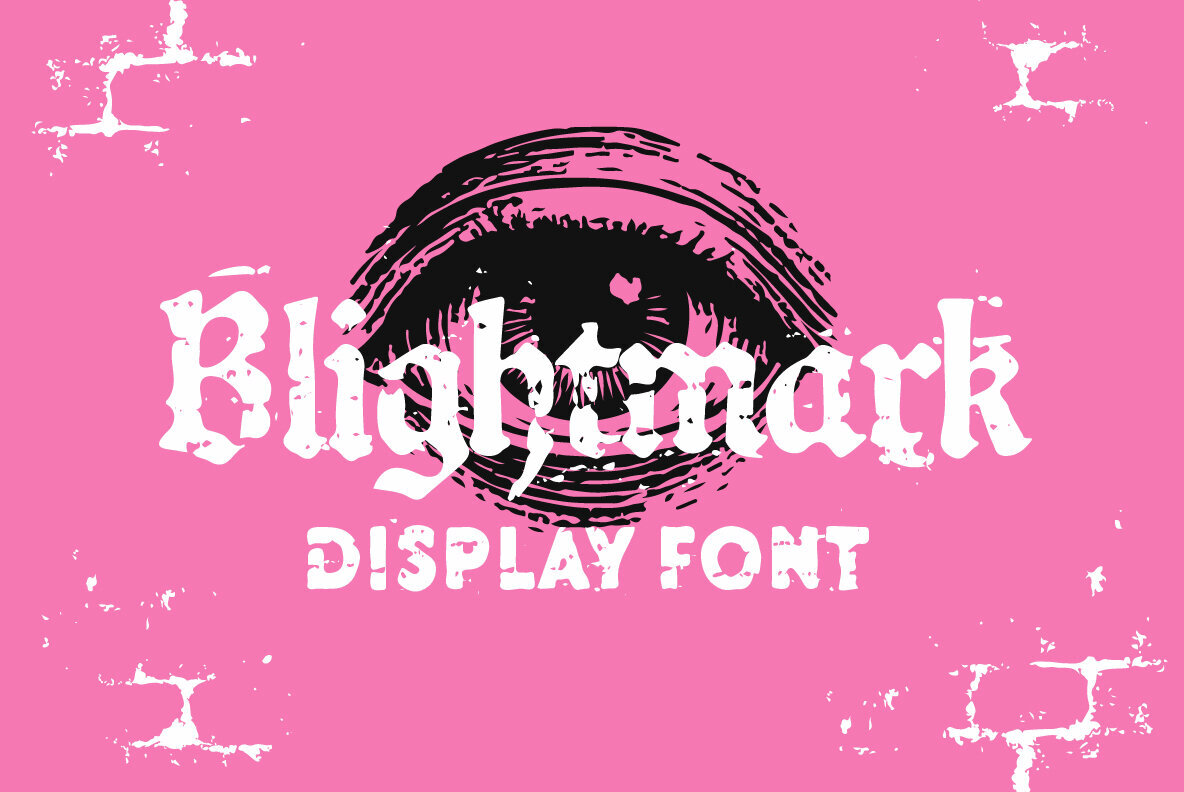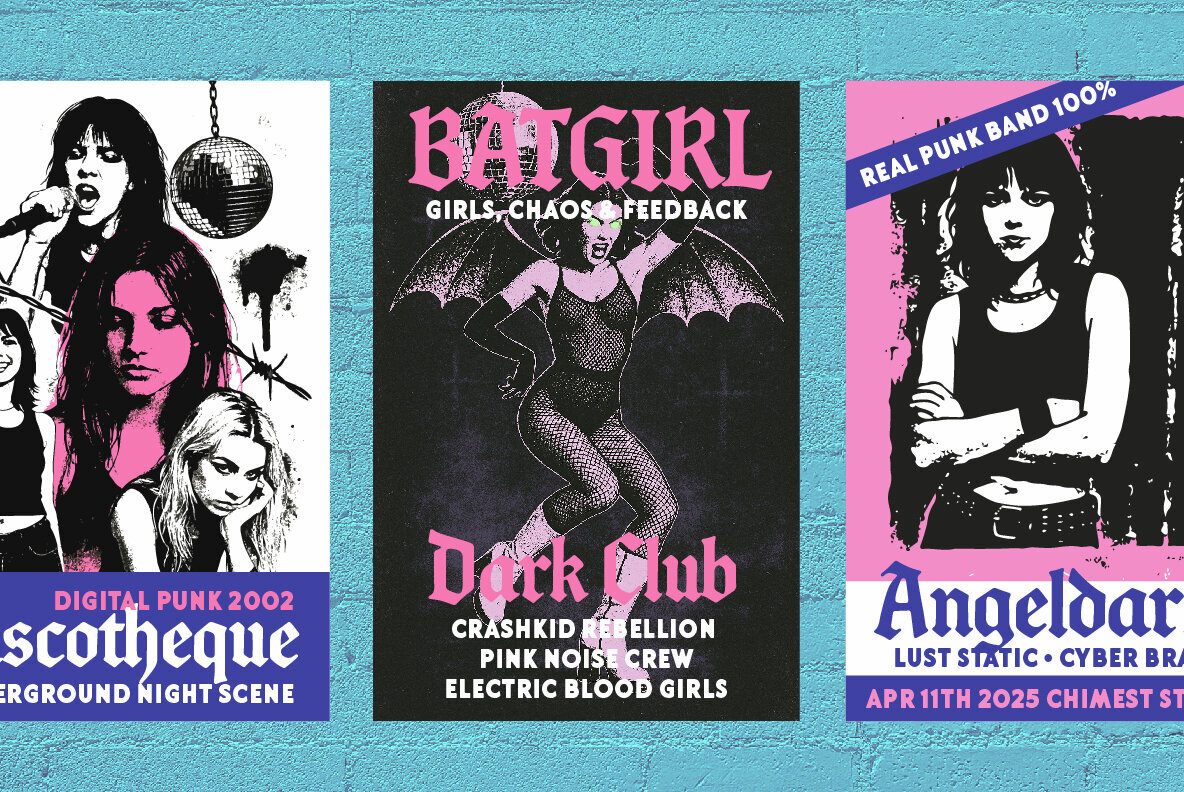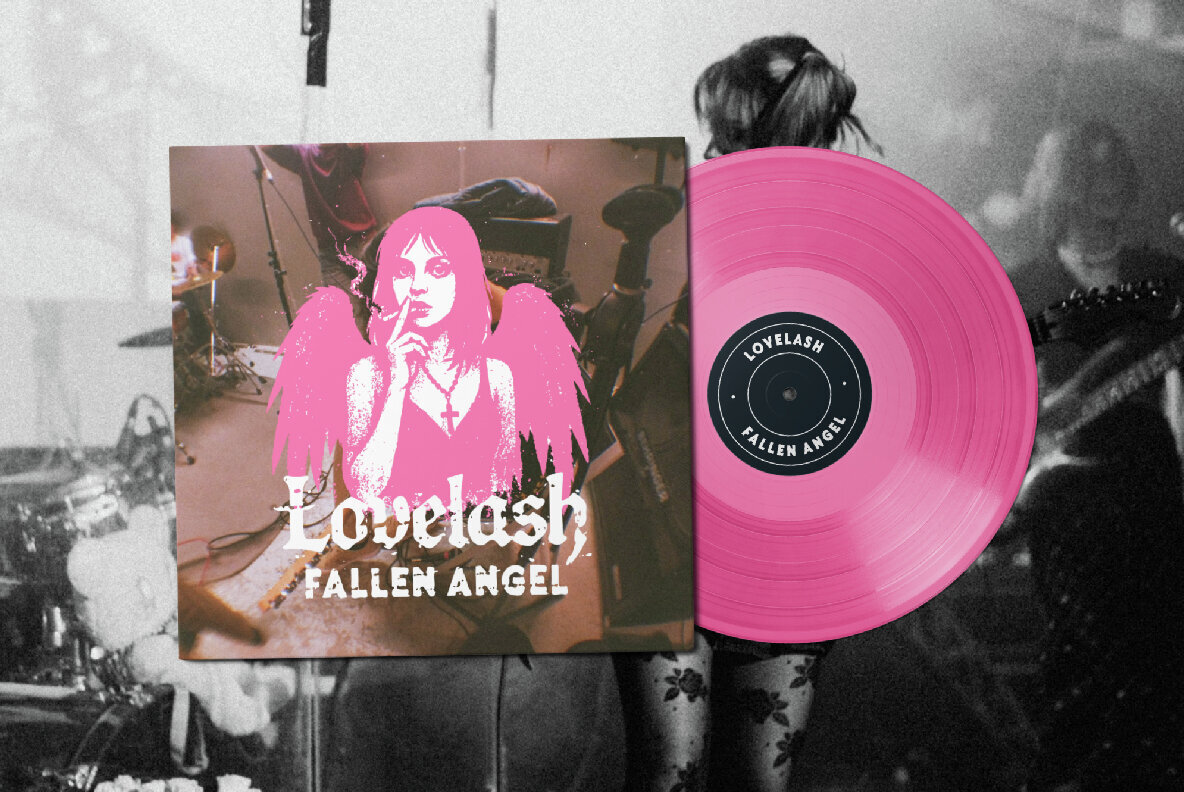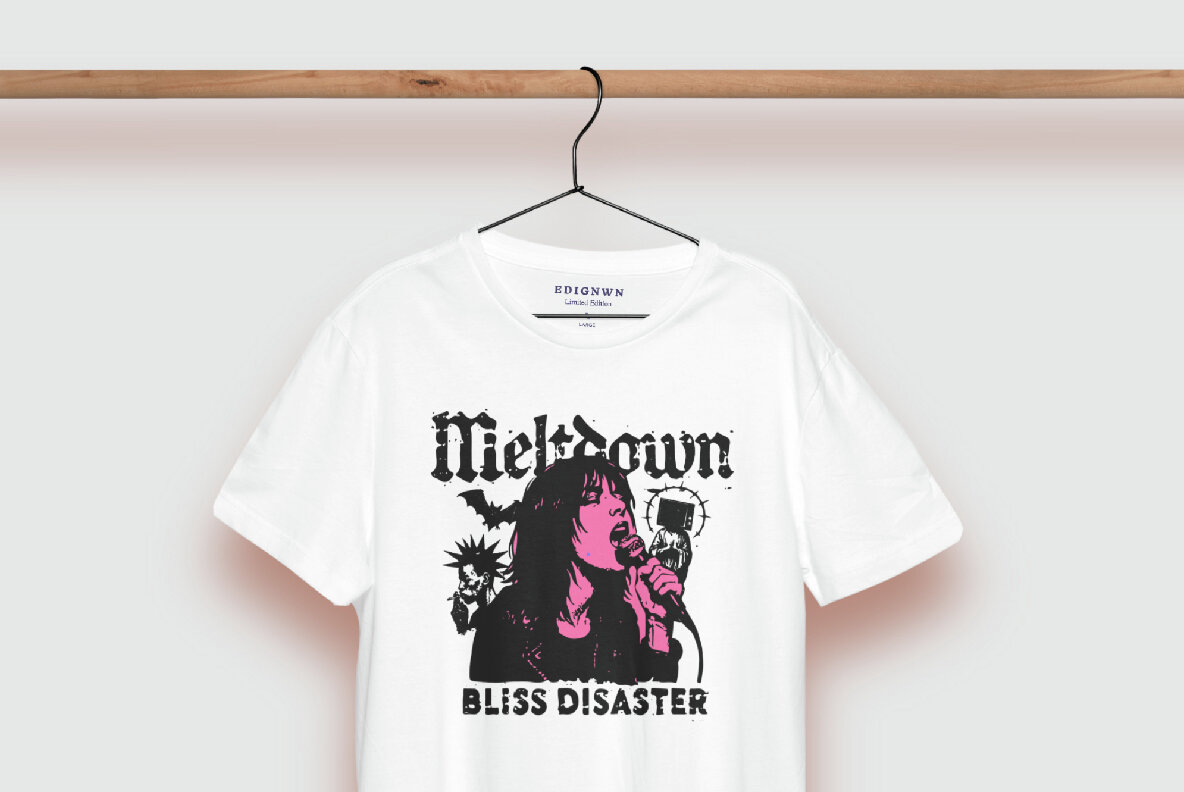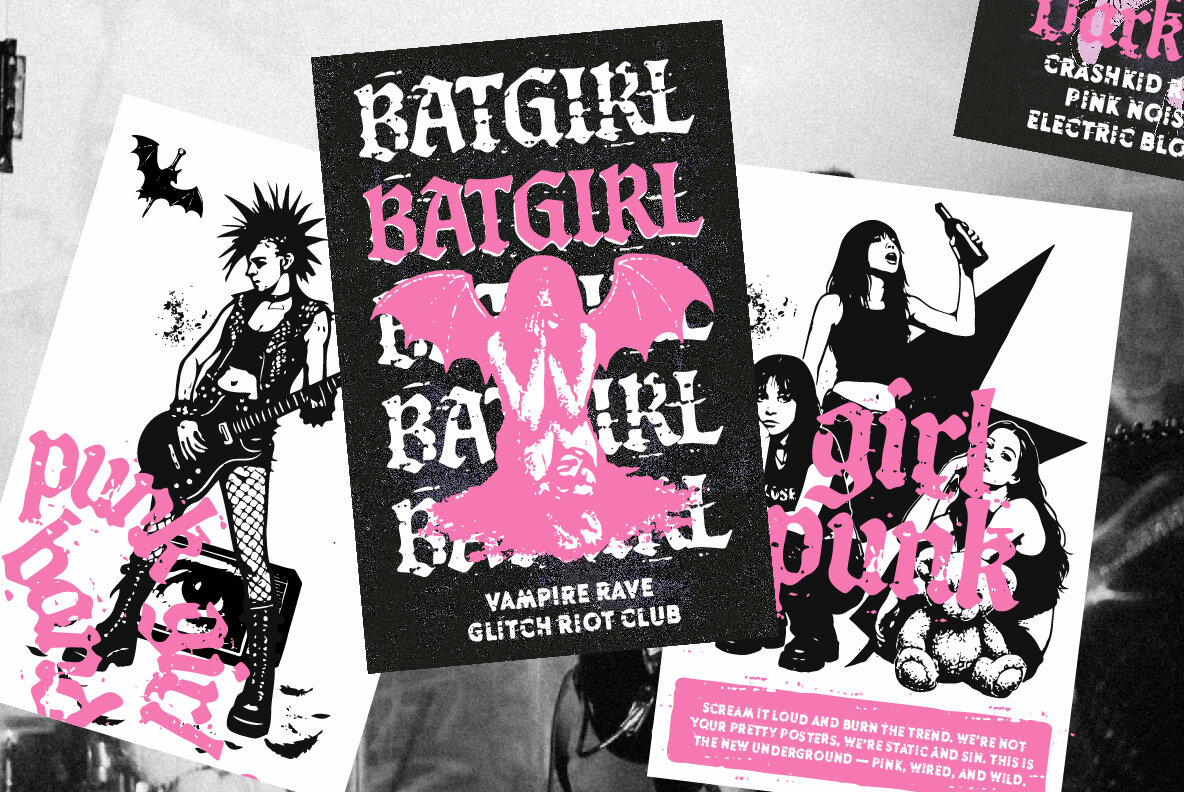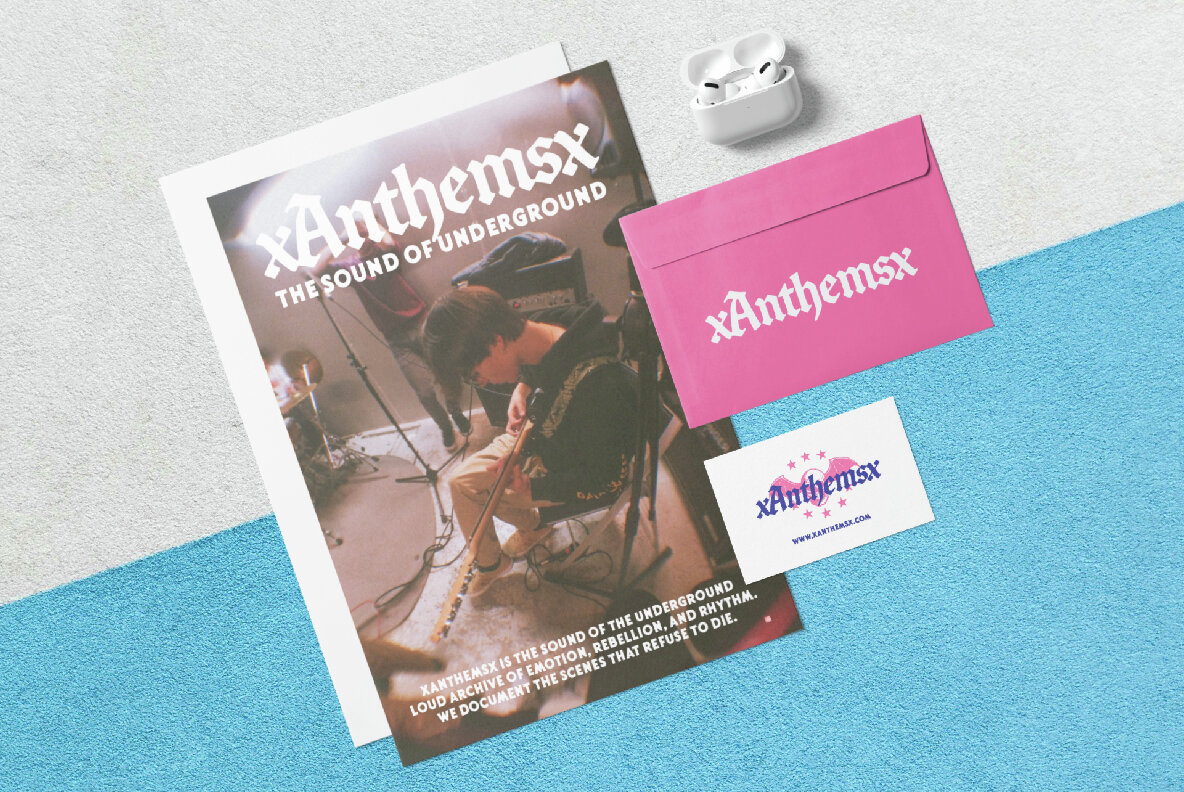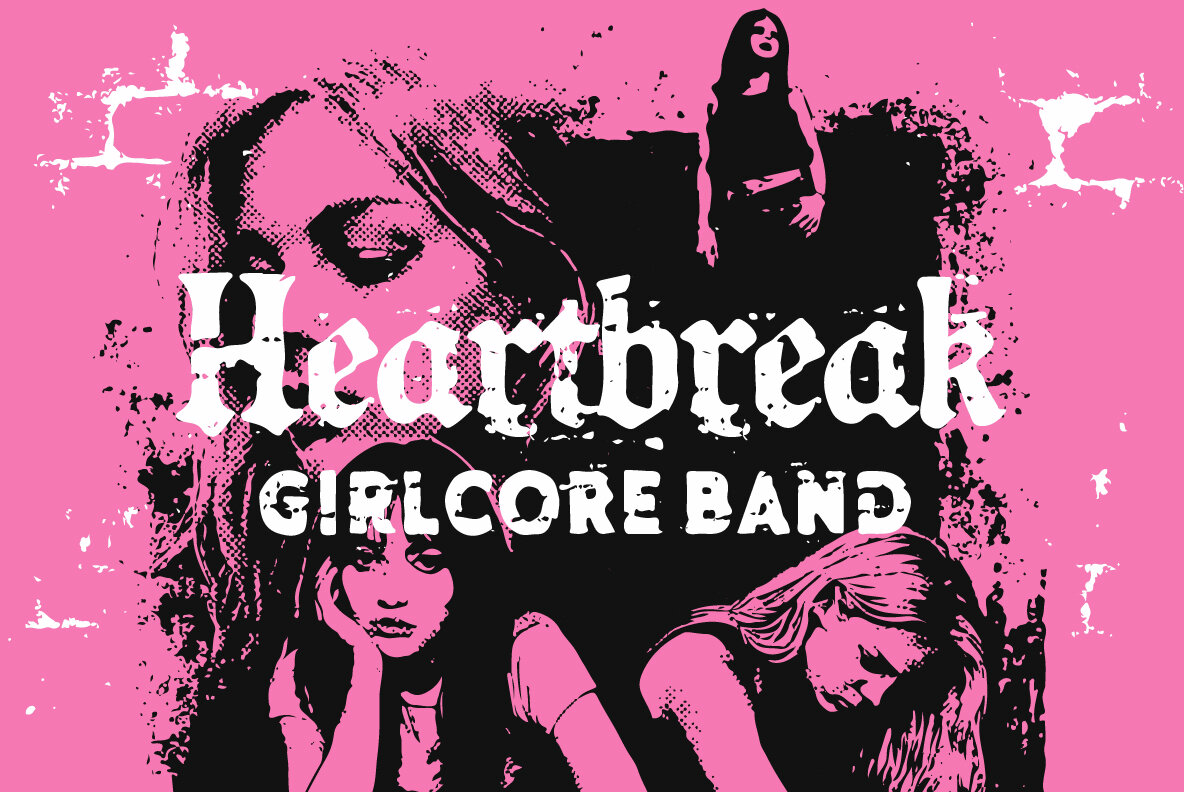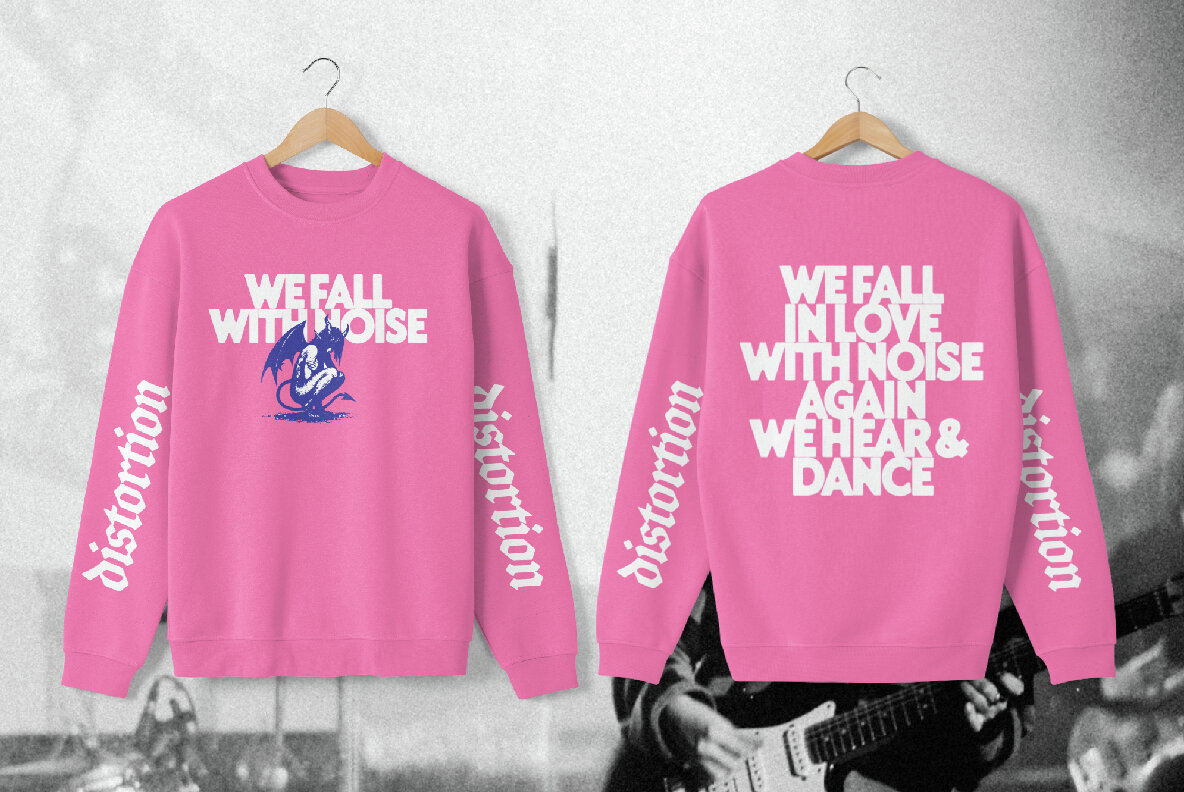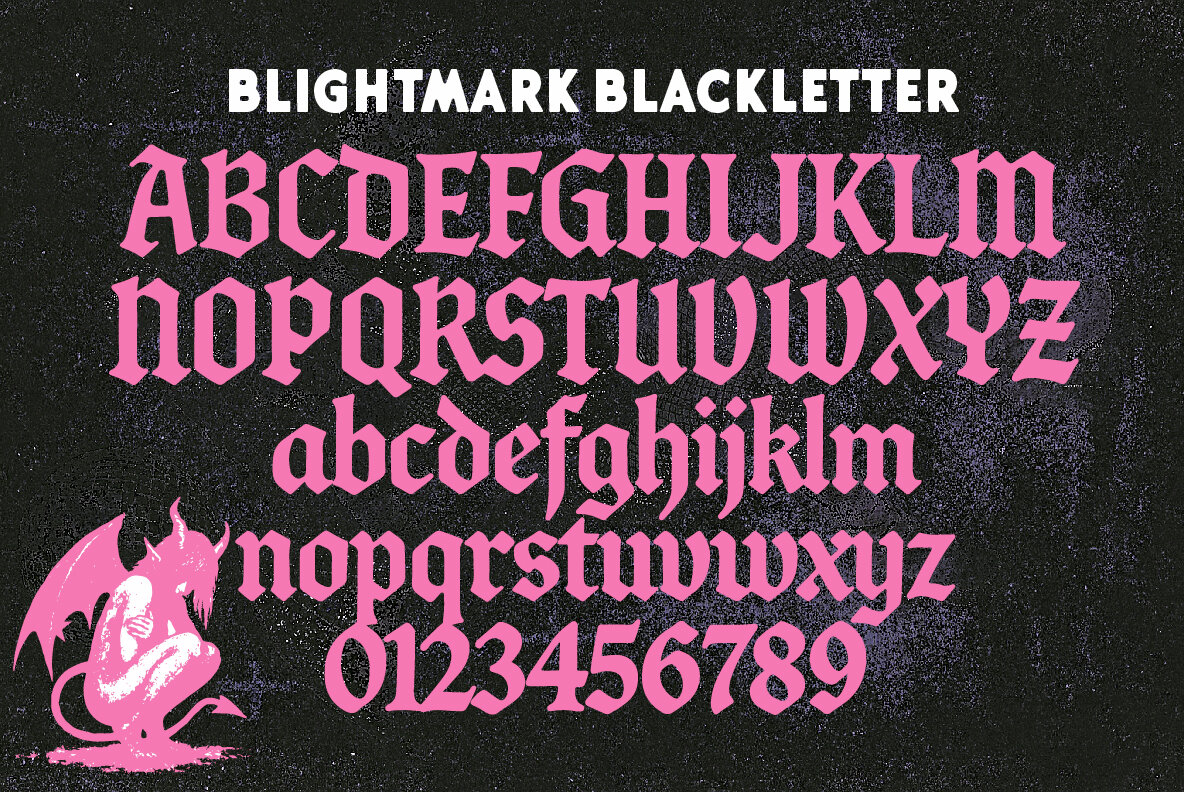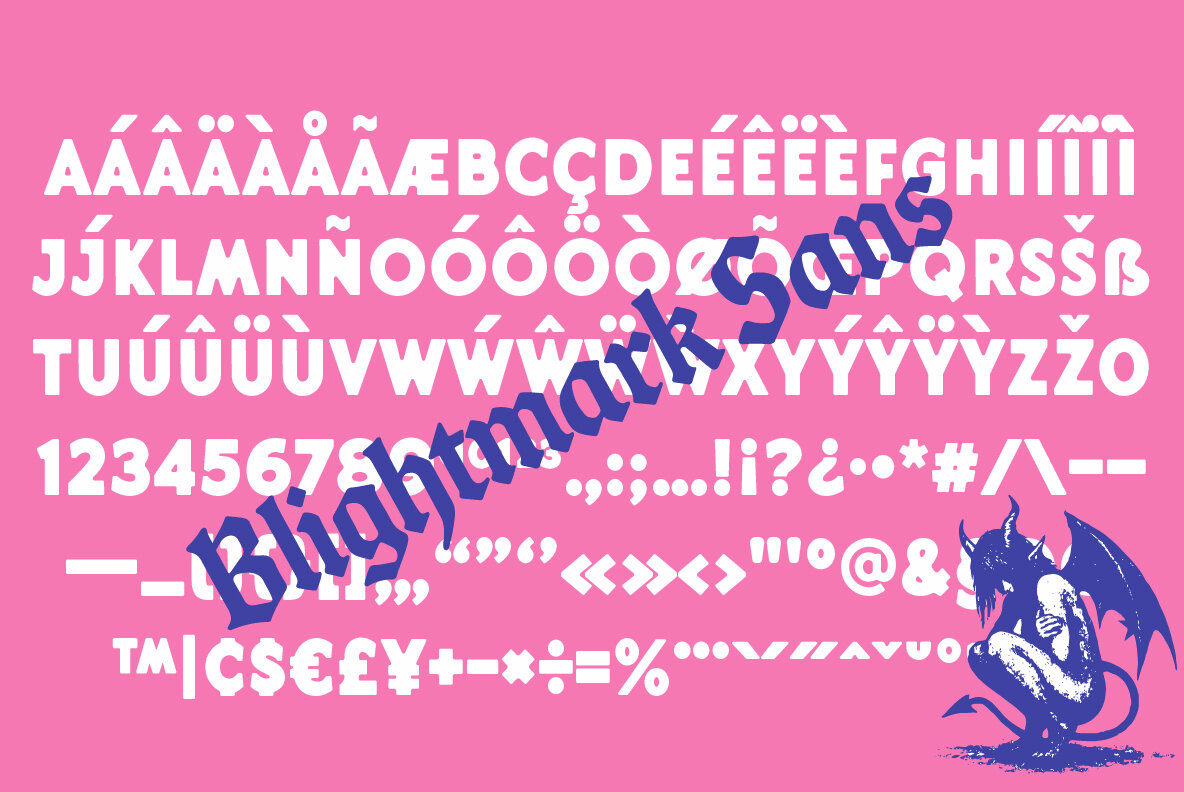
Blightmark Font
Blightmark Blackletter Regular
Blightmark Oblique Regular
Blightmark Sans Regular
Blightmark Blackletter Textured
Blightmark Oblique Textured
Blightmark Sans Textured
Blightmark stands out with its unapologetic attitude and striking display font duo. Designed to infuse projects with punk energy, this versatile type system is ideal for visual branding, band merchandise, and underground culture. Its fusion of gritty blackletter details and modern distortion delivers a distinct edge, making it well-suited for girl punk bands and raw DIY aesthetics. The jagged edges, textured ink, and powerful letterforms give Blightmark a fierce visual voice. Whether featured on posters, album covers, apparel, or editorial layouts, these fonts ensure your message gets noticed. Each letterform is meticulously crafted to command attention and carry an unmistakable sense of urgency and style.Bold Typography Built for Rebellion